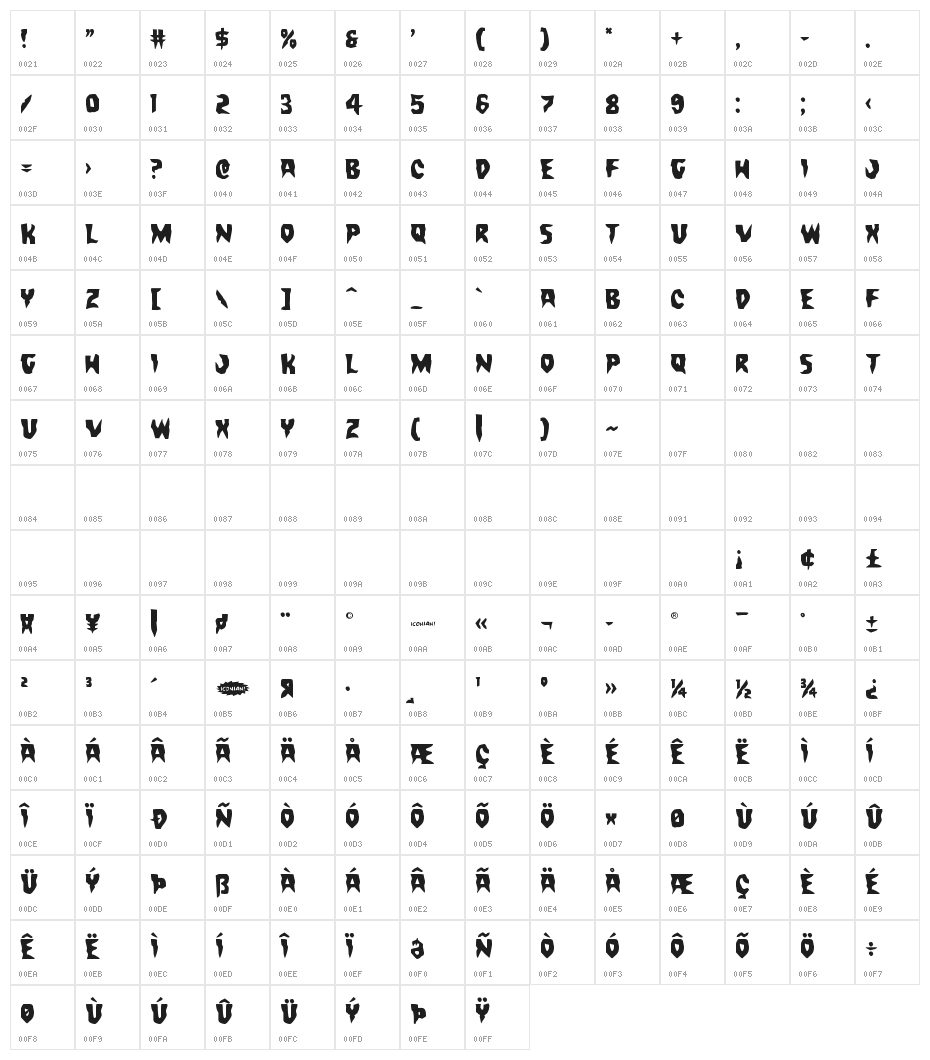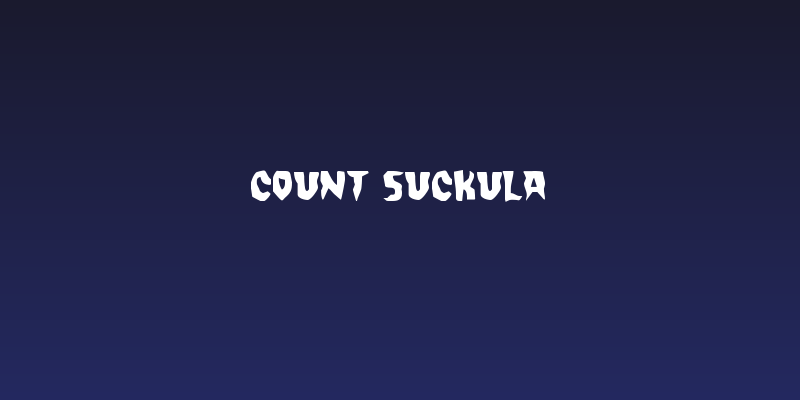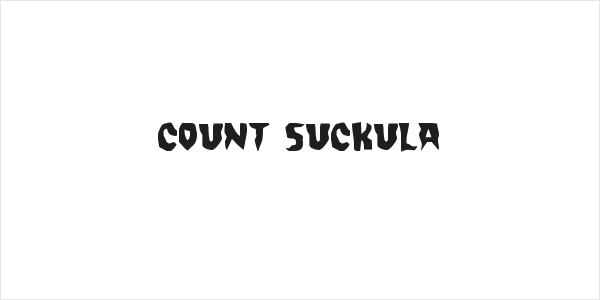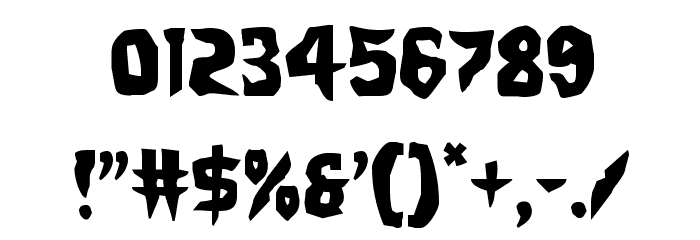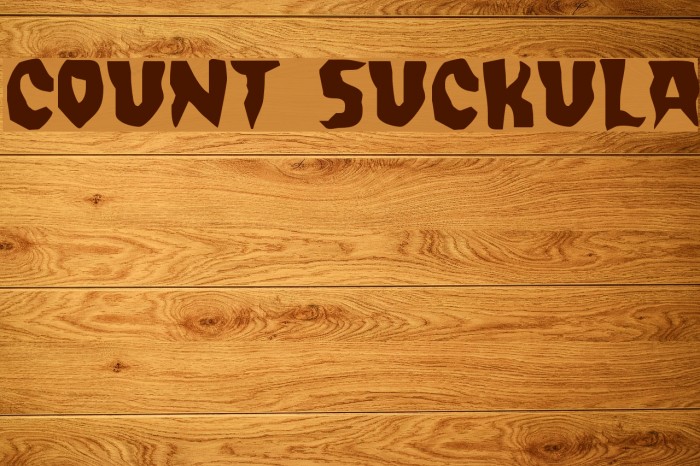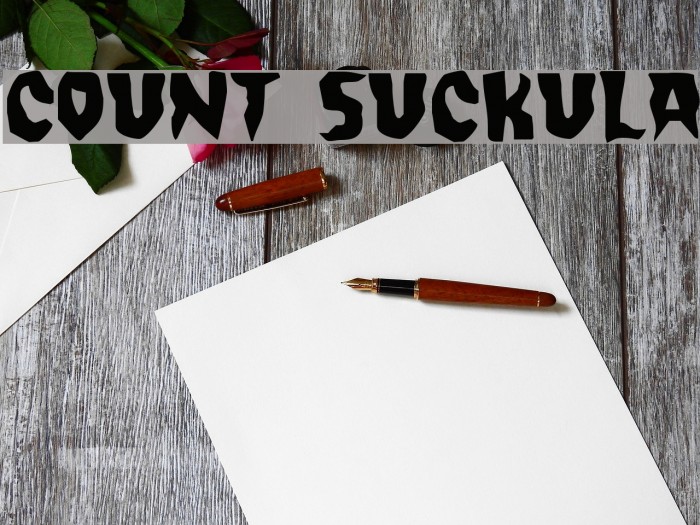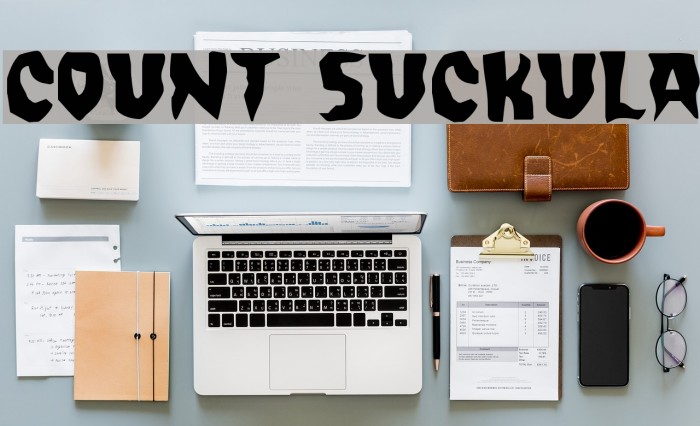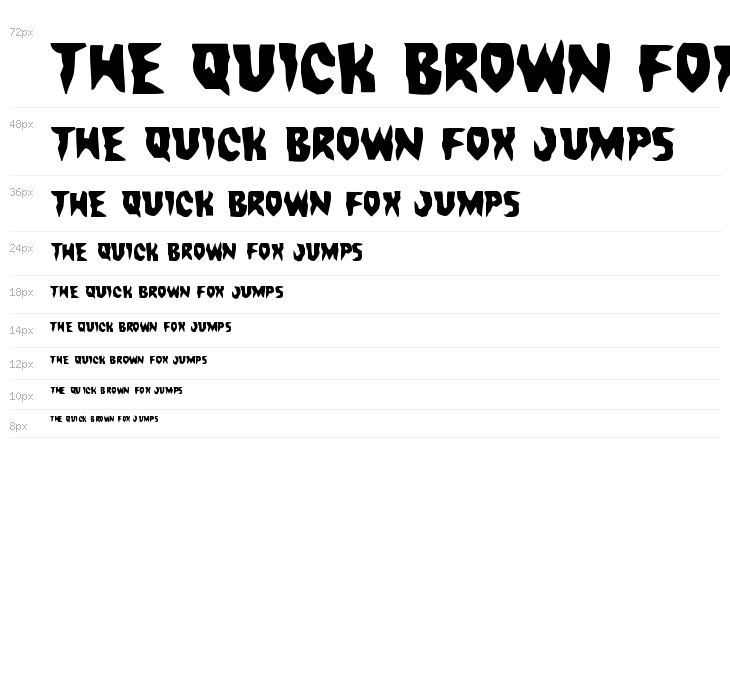
Count Suckula Font
Count Suckula Description
This font features a bold and jagged design, reminiscent of classic horror themes. The letters have sharp, angular edges and a slightly irregular form, giving it a hand-carved appearance. The uppercase and lowercase letters maintain a consistent style, with exaggerated serifs and a playful yet menacing aesthetic. The numbers and special characters follow the same design principles, ensuring a cohesive look across all glyphs. This font is perfect for creating a spooky or gothic atmosphere, making it ideal for Halloween-themed projects or any design that requires a touch of the macabre.
| Proposed Projects | Ideal for Halloween invitations, horror movie posters, themed event flyers, or spooky merchandise designs. |